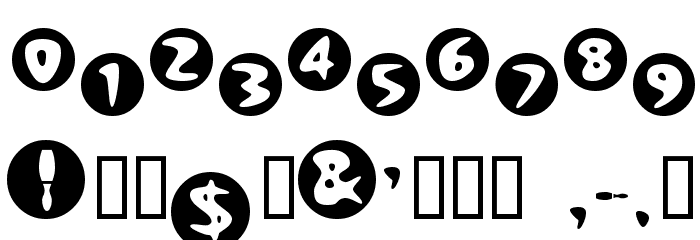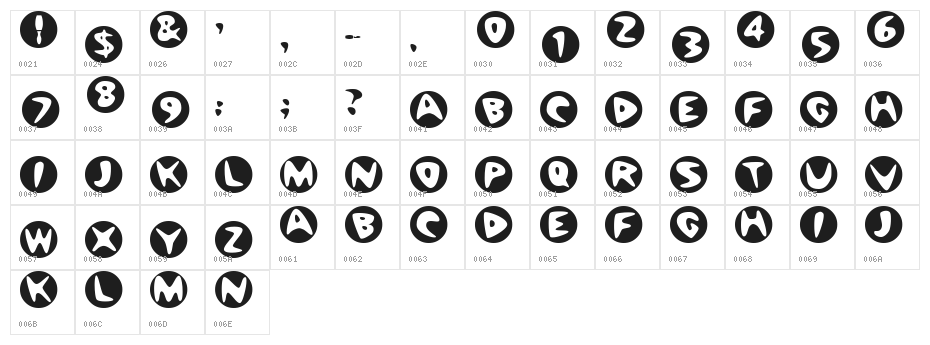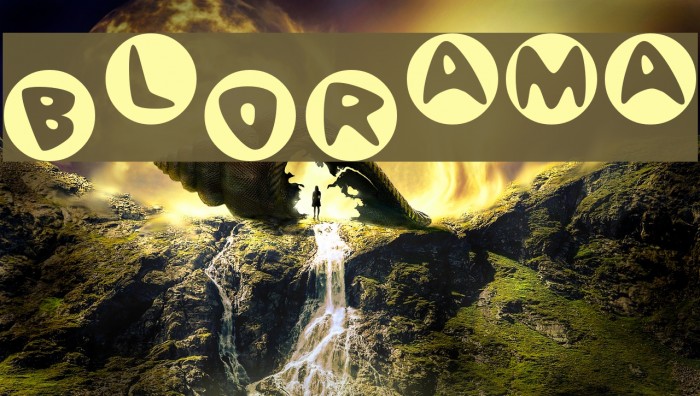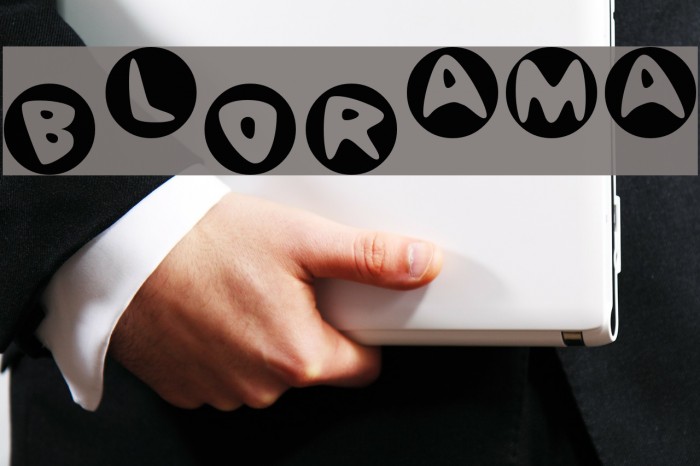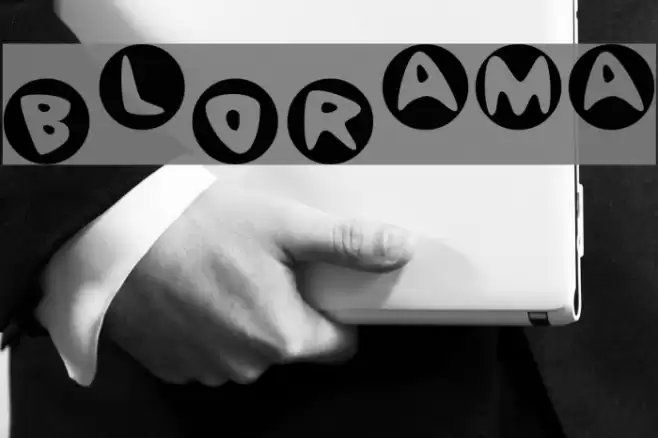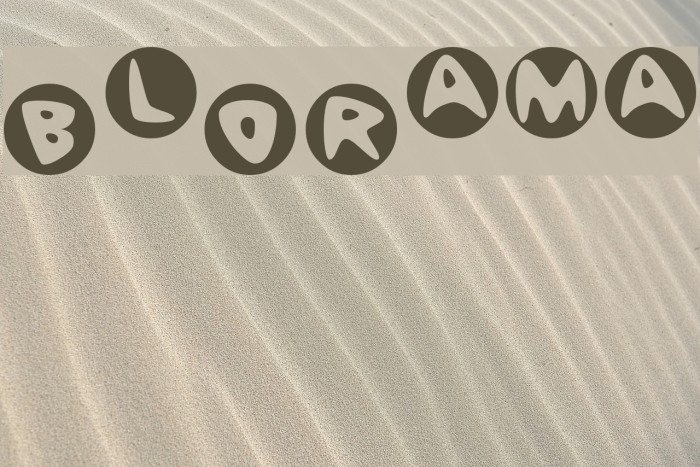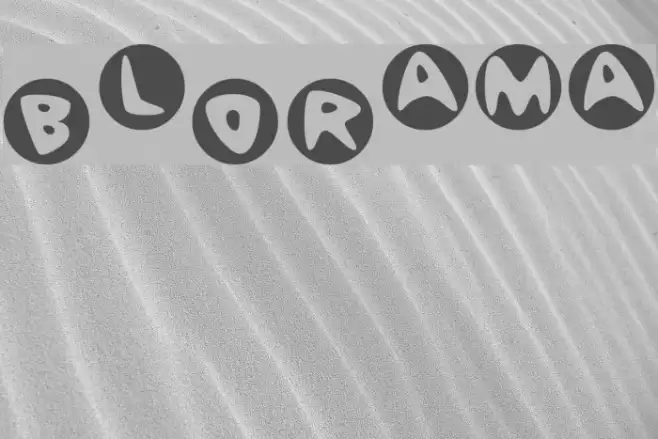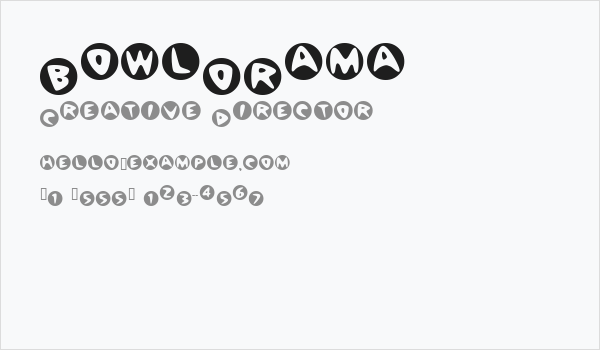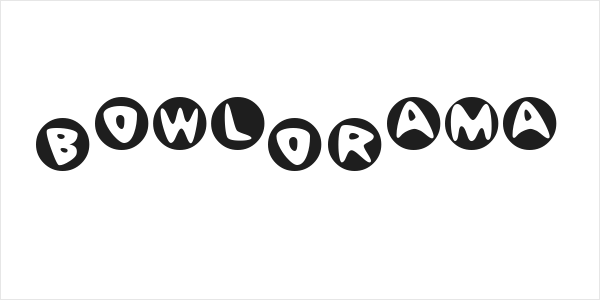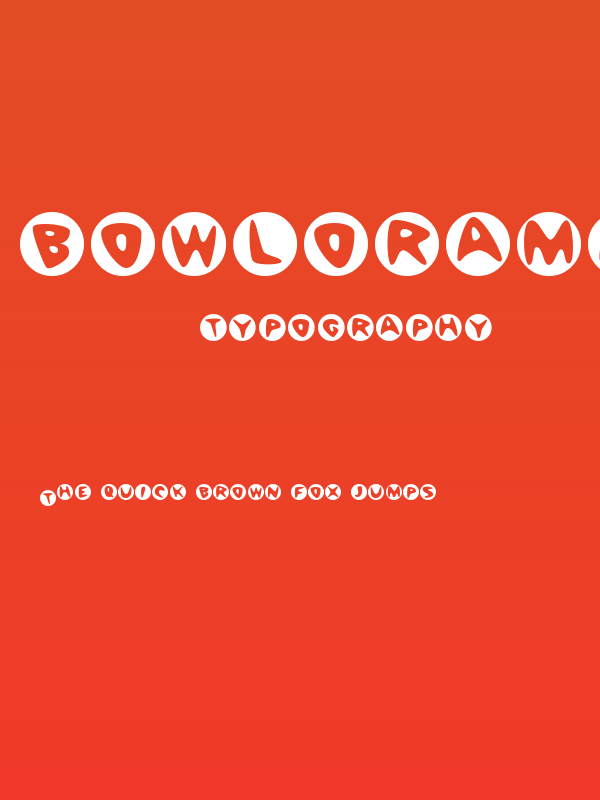
BowlORama Font
BowlORama Description
This playful and bold font features characters enclosed in circular shapes, reminiscent of bowling balls. The letters are quirky with a hand-drawn feel, offering a unique and eye-catching style. The uppercase and lowercase letters maintain a consistent circular theme, while the numbers and special characters follow suit, adding to the cohesive design. The font's whimsical nature makes it ideal for projects that require a fun and informal touch.
| Overall Style | Playful, Retro |
| Use Case | Logos, Posters, Invitations |
| Proposed Projects | Ideal for children's books, party invitations, playful branding, and retro-themed designs. |